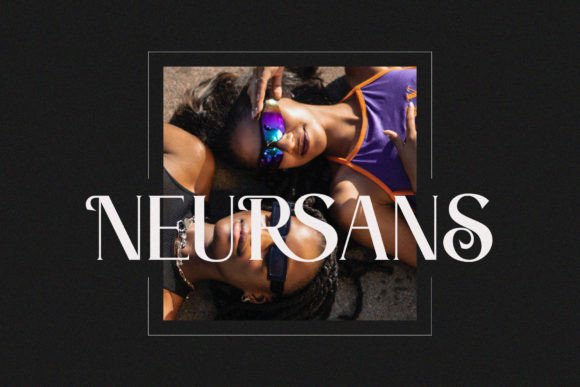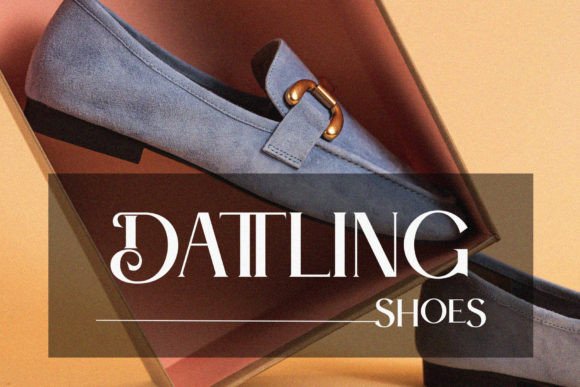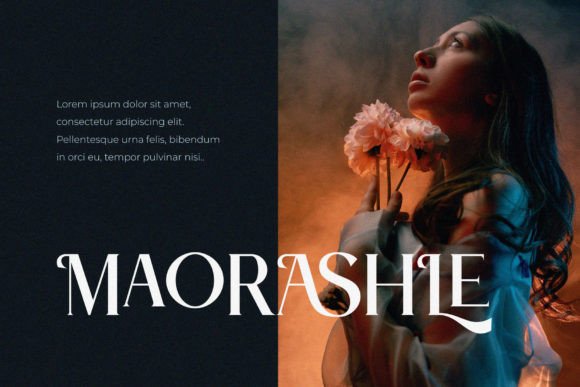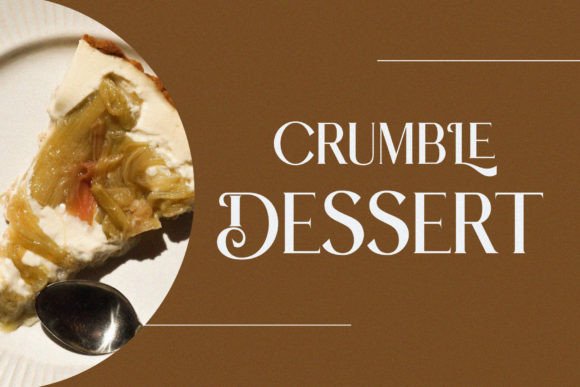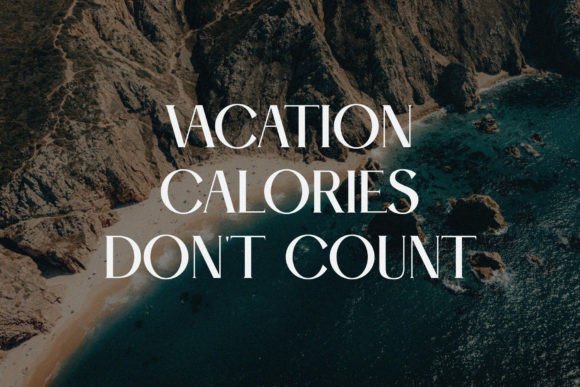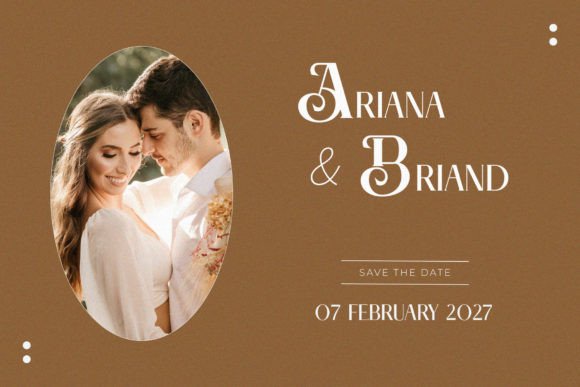
Introducing Aleksa Font: Elevate Your Designs with Elegance and Class
In the world of typography, finding the perfect font that embodies both modernity and nostalgia can be a daunting task. However, for those seeking an elegant and classy serif typeface, Aleksa Font is here to transform your designs. This versatile font is meticulously crafted to bring a touch of sophistication, style, and chic to your projects, making it an ideal choice for logos, magazines, social media, and more.
The Essence of Aleksa Font
Aleksa Font stands out with its unique blend of modern and classic elements. Its serif design exudes a sense of tradition and reliability, while its clean lines and subtle curves infuse a modern feel. This combination makes Aleksa not just a font, but a statement piece for your designs. Whether you’re working on a logo that needs to convey luxury and professionalism or a magazine that requires a touch of elegance, Aleksa Font is up to the task.
Key Features of Aleksa Font
- Elegant and Classy Design: Aleksa’s serif typeface is designed to add an air of sophistication to any design project.
- Modern and Nostalgic: The font strikes a perfect balance between modern clean lines and classic serif elements, making it versatile for various design needs.
- Ready-to-Use Pairings: Aleksa Font comes with matched font pairs, making it easy to choose complementary fonts for your designs without the hassle of compatibility issues.
- Versatile Applications: From logos and branding to magazines, social media posts, and more, Aleksa Font is designed to elevate your designs across different platforms.
Why Choose Aleksa Font?
For designers and crafters looking to infuse their projects with a sense of elegance, style, and modernity, Aleksa Font is the perfect solution. Its unique design ensures that your work stands out in a crowded digital landscape. Moreover, the font’s versatility means you can use it across various projects, from editorial design to digital content creation, without worrying about consistency.
Applications of Aleksa Font
The applications of Aleksa Font are vast and varied. Here are a few ideas to get you started:
- Logo Design: Create memorable and impactful logos that convey professionalism and elegance.
- Magazine and Editorial Design: Elevate your magazine layouts, articles, and editorials with a sophisticated font that captures readers’ attention.
- Social Media Graphics: Stand out on social media platforms with Aleksa Font, perfect for creating engaging posts, stories, and banners.
- Branding and Identity: Develop a consistent brand identity with Aleksa Font, ideal for packaging, business cards, and more.
How to Use Aleksa Font Effectively
To maximize the potential of Aleksa Font, consider the following tips:
- Pairing: Experiment with the provided font pairs to find the perfect combination for your design.
- Sizing: Play with different font sizes to create visual hierarchy and emphasize key points.
- Color: Choose colors that complement the elegant feel of Aleksa Font, such as neutral tones or rich jewel tones.
Aleksa Font is more than just a typeface; it’s a design solution for those looking to add a touch of elegance, style, and modernity to their projects. With its versatile design, ready-to-use pairings, and wide range of applications, Aleksa Font is set to become an indispensable part of your design toolkit. Whether you’re a professional designer or a crafter, Aleksa Font invites you to explore new possibilities in typography and design.
So why wait? Dive into the world of Aleksa Font today and discover how this elegant and classy serif typeface can transform your designs.